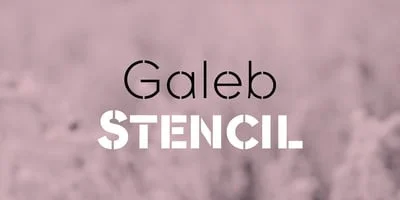
Galeb Stencil Font
Galeb Stencil Font is ideal for military-themed designs, industrial equipment labeling, shipping container markings, warehouse signage, tactical gear branding, urban street art, stencil craft projects, aviation industry materials, logistical communications, and utilitarian applications that require durable marking and functional visibility in demanding environments.
What makes Galeb Stencil Font truly exciting is its perfect fusion of practical functionality and industrial strength that delivers reliable communication in the most challenging environments where clarity and durability are absolutely essential. This exceptional typeface embodies the spirit of efficient marking systems with its precisely cut letterforms and stencil-optimized character that ensure perfect reproduction across multiple surfaces and conditions. The font's utilitarian excellence and field-tested reliability make it perfect for applications that demand both visual clarity and practical performance in industrial, military, and logistical operations.
The Galeb Stencil Font family includes multiple weights and styles: Regular, Bold, Condensed, Extended, and Heavy-Duty variations designed for maximum stencil functionality. Each family member maintains the distinctive cut-out character while offering flexibility for diverse marking applications and industrial branding systems. The comprehensive character set supports international marking standards and industrial design elements, making it suitable for global operational communications.
When you choose Galeb Stencil Font, you're selecting a typography workhorse that delivers mission-critical performance and industrial-grade reliability. This functional typeface excels in applications where practical marking and environmental durability are paramount, delivering exceptional visibility while maintaining stencil authenticity. Whether you're designing industrial systems, military materials, urban graphics, or practical signage, this font provides the stencil excellence and operational reliability that resonates with professionals who require dependable marking solutions, functional design, and the proven performance of time-tested stencil communication systems.